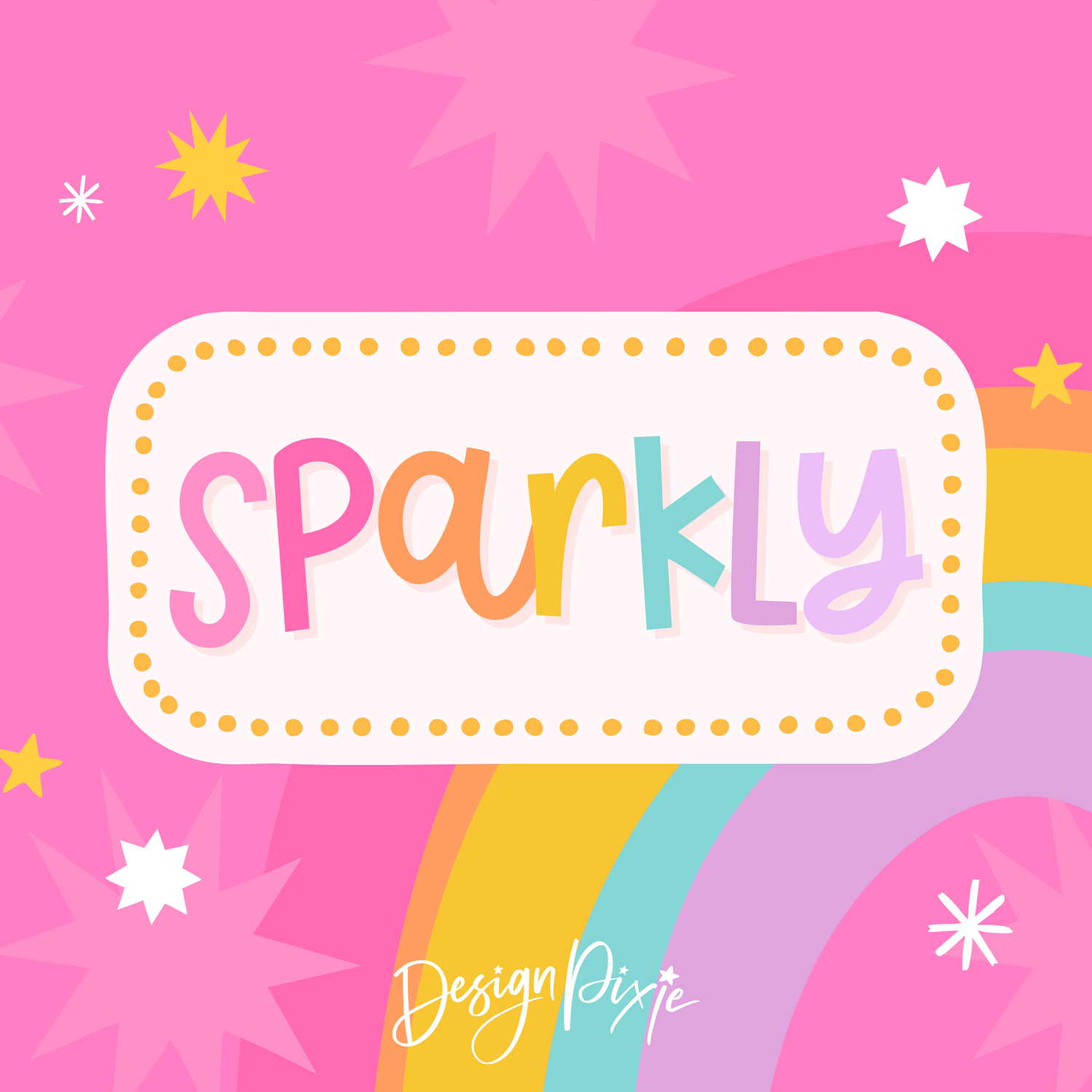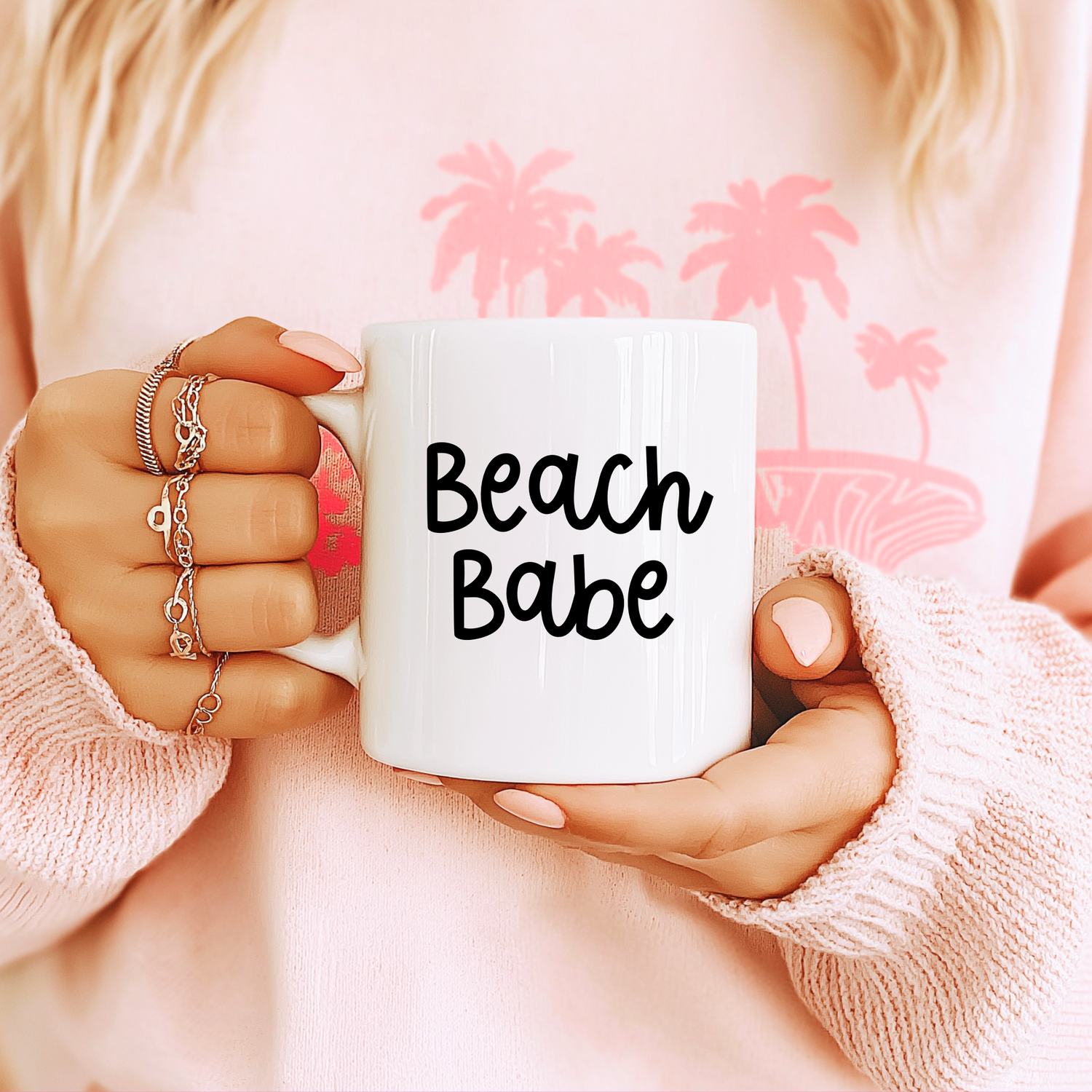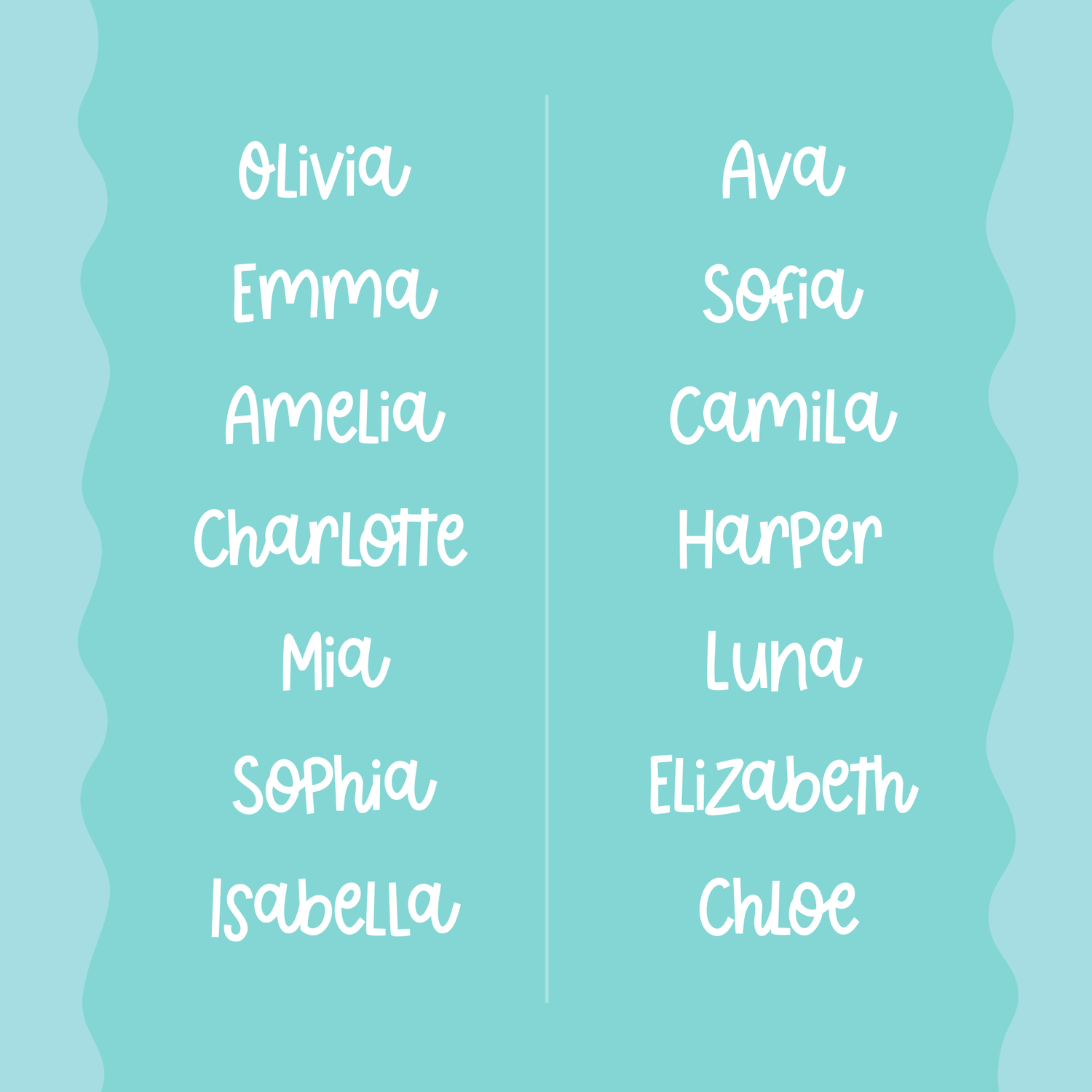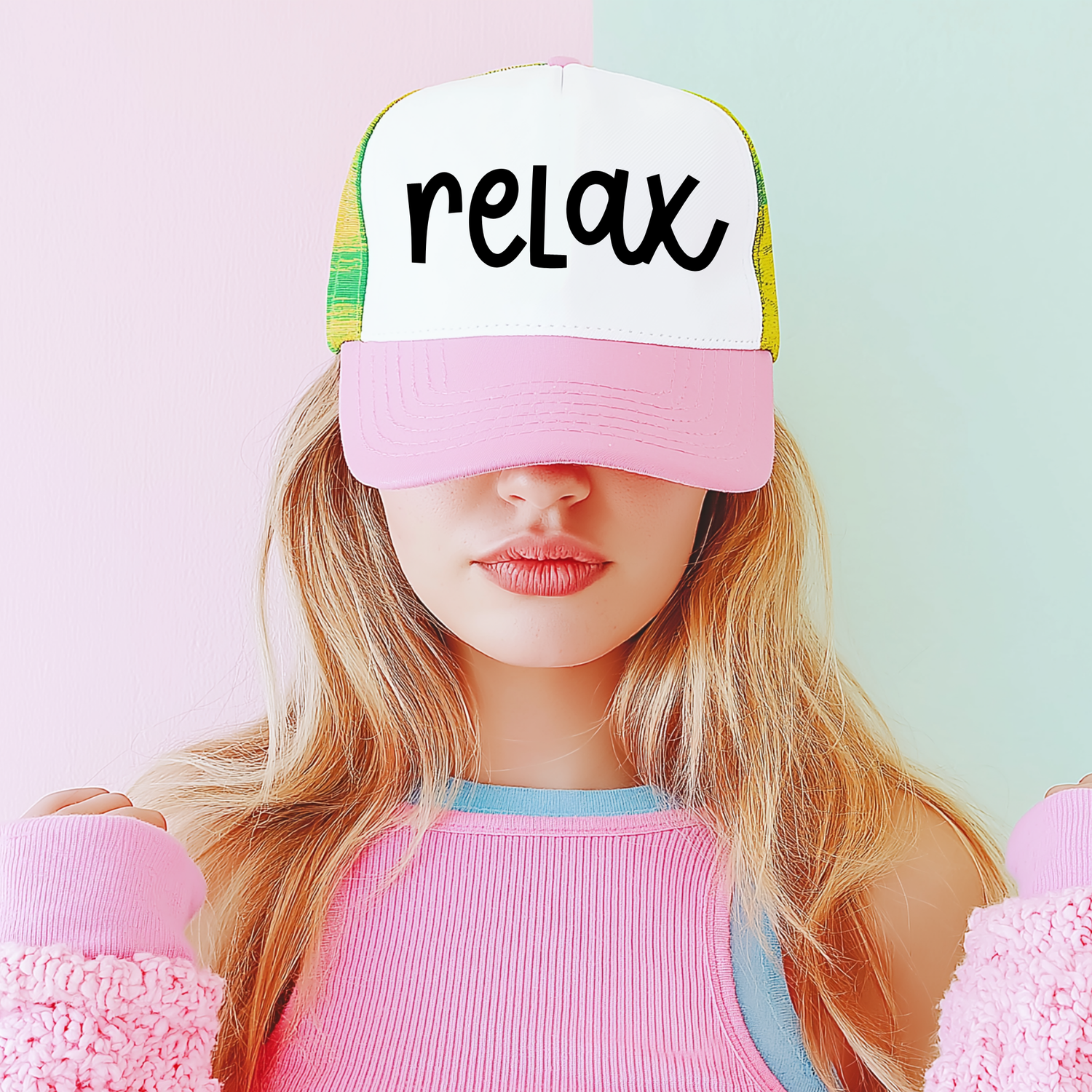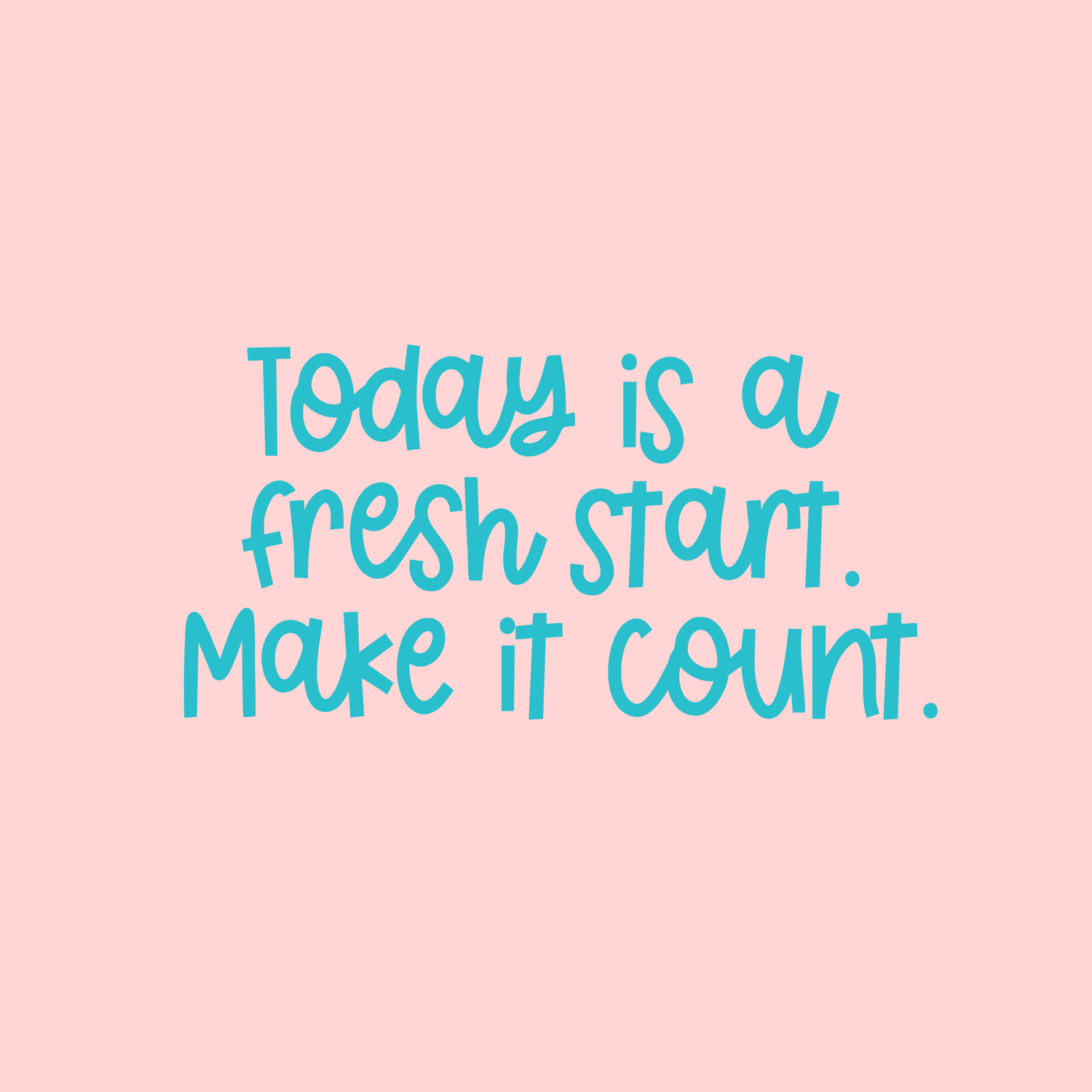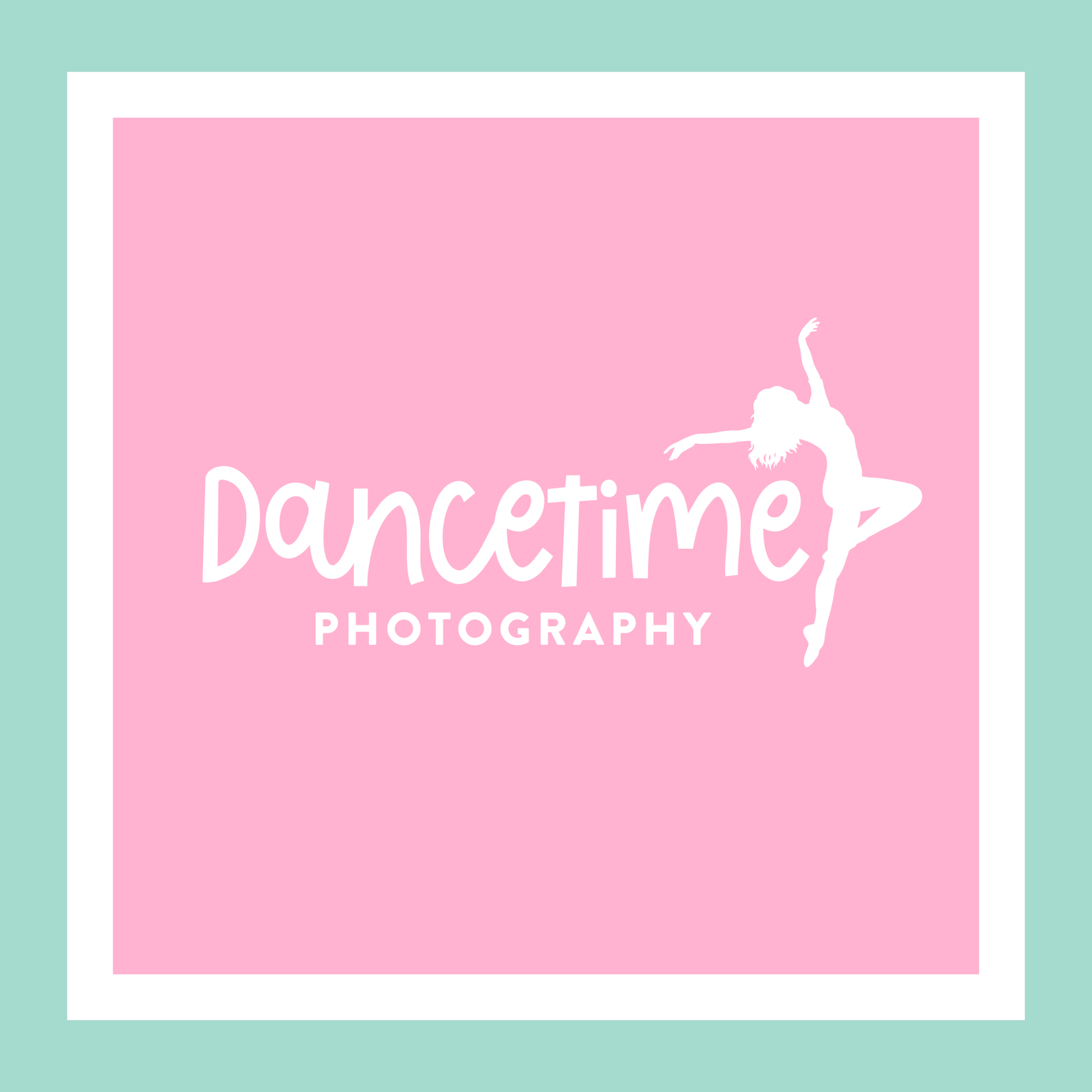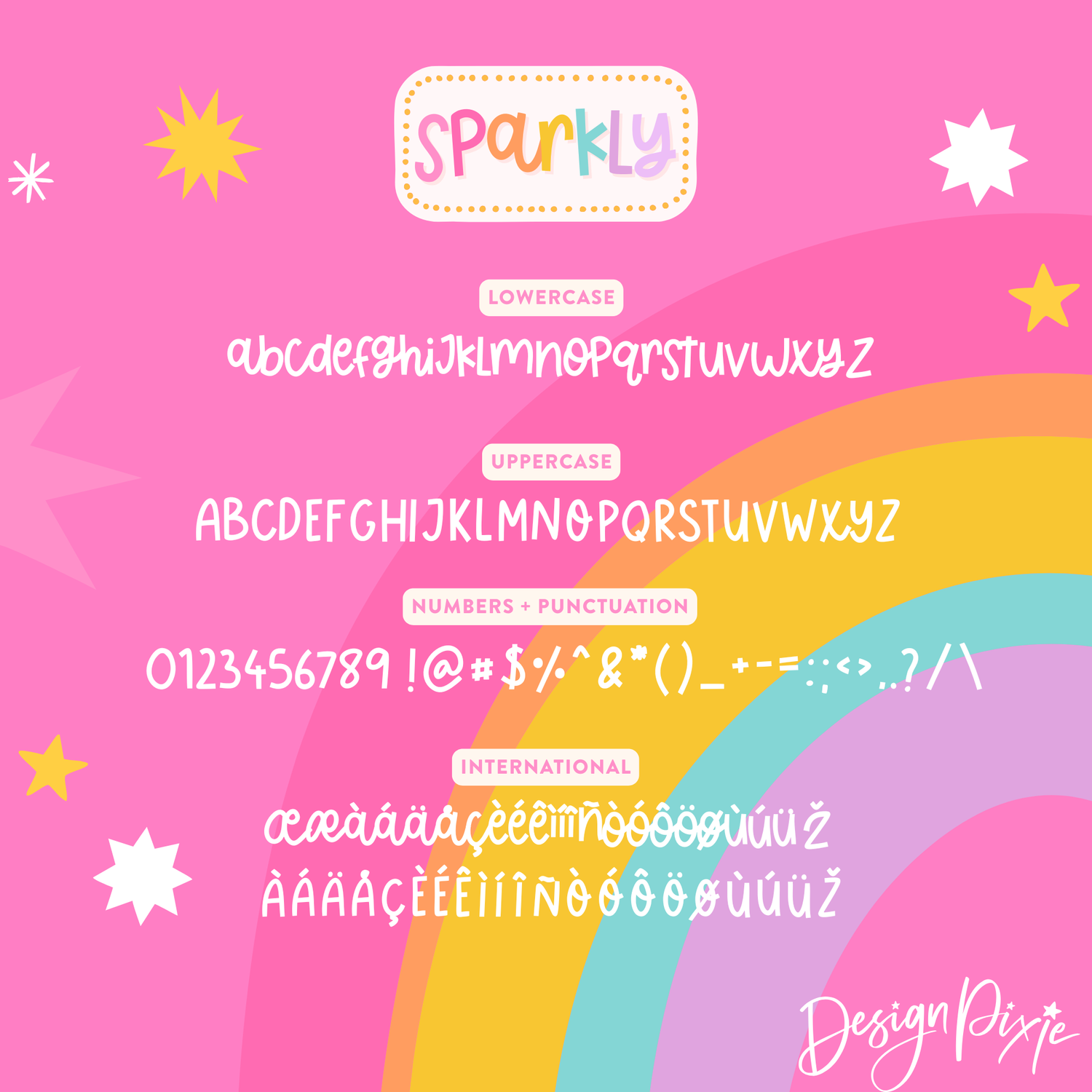
Sparkly Font
Say hello to Sparkly, the bouncy handwritten font made to bring energy and charm to every word. Cute, quirky, and full of personality, Sparkly is perfect for statement words, lettering quotes, logos, and adding fun names to your products.
With playful letterforms that dance across the page, Sparkly adds a cheerful, friendly vibe to packaging, cards, shirts, stickers, social media graphics, and more. It’s bold, expressive, and guaranteed to make your designs pop.